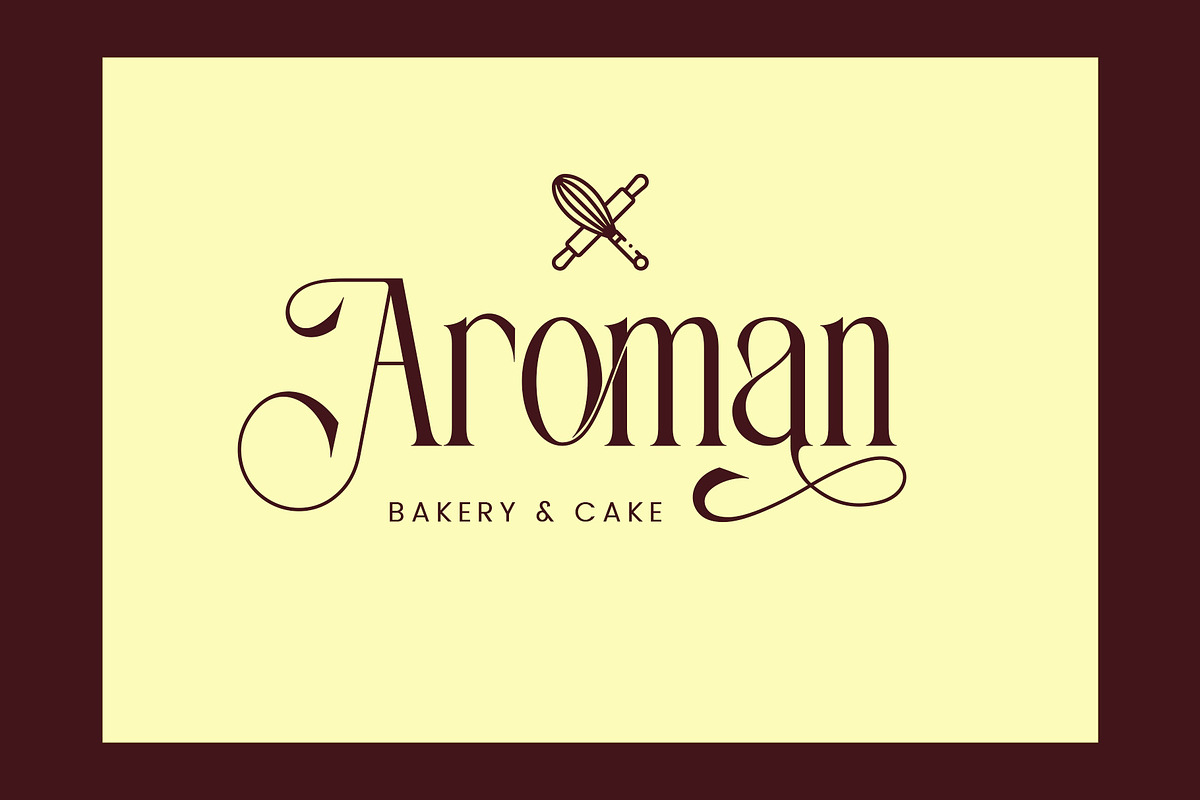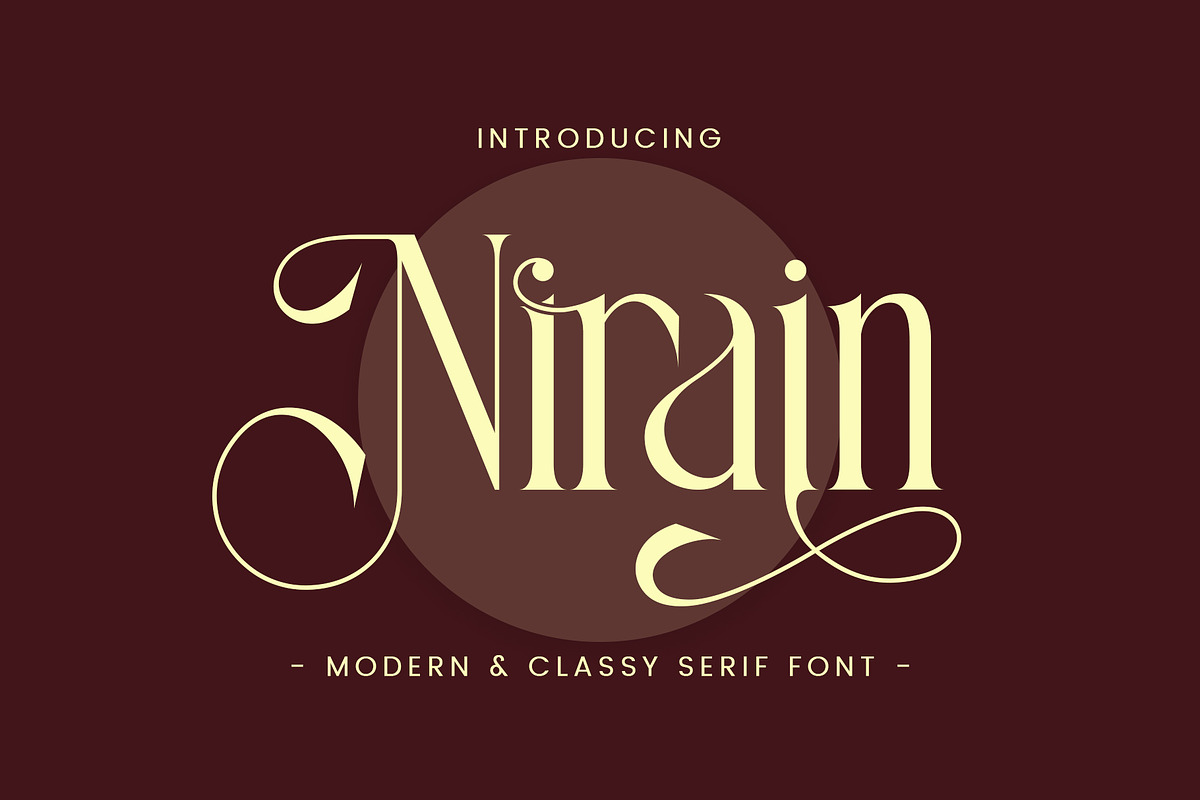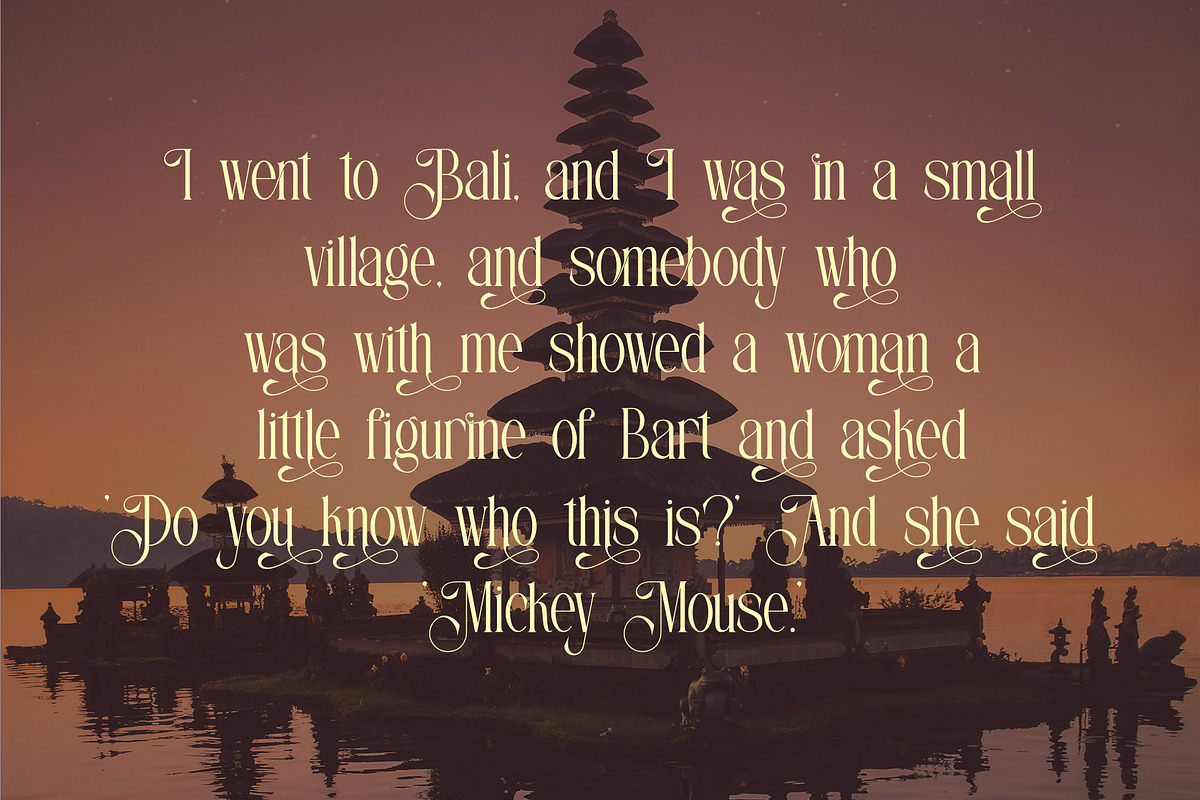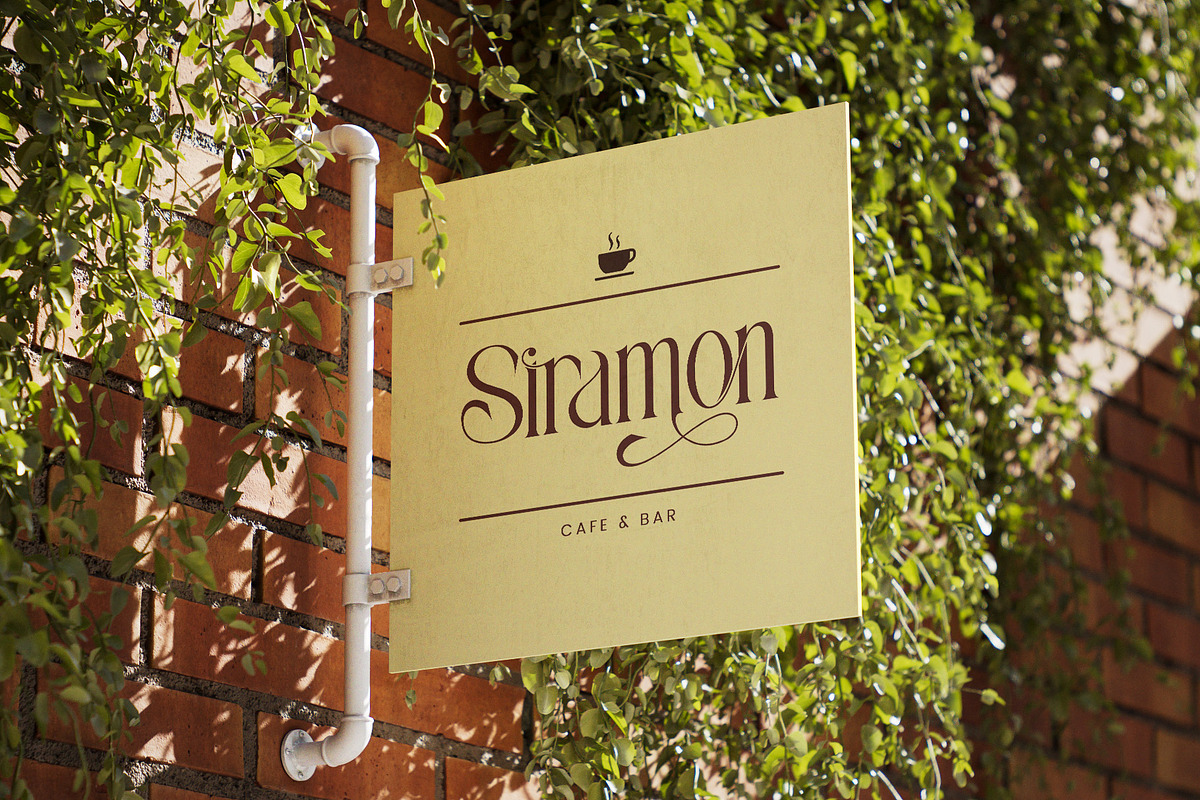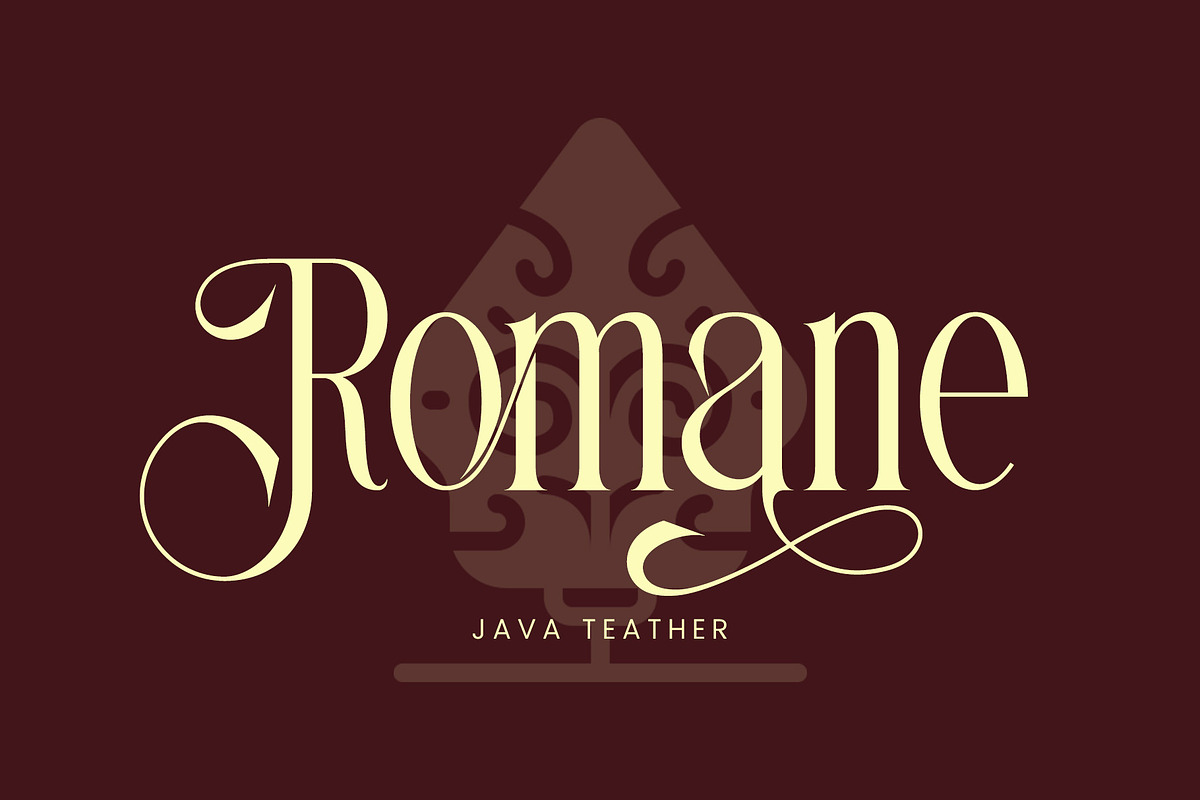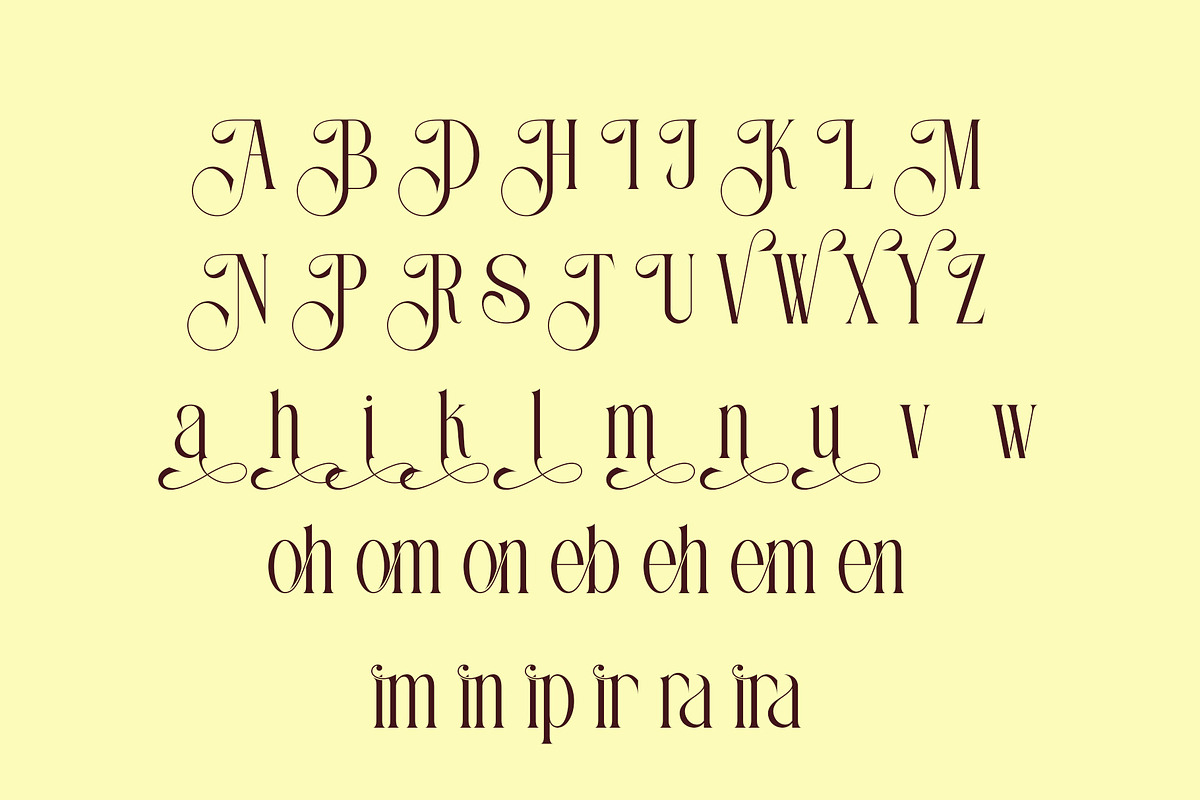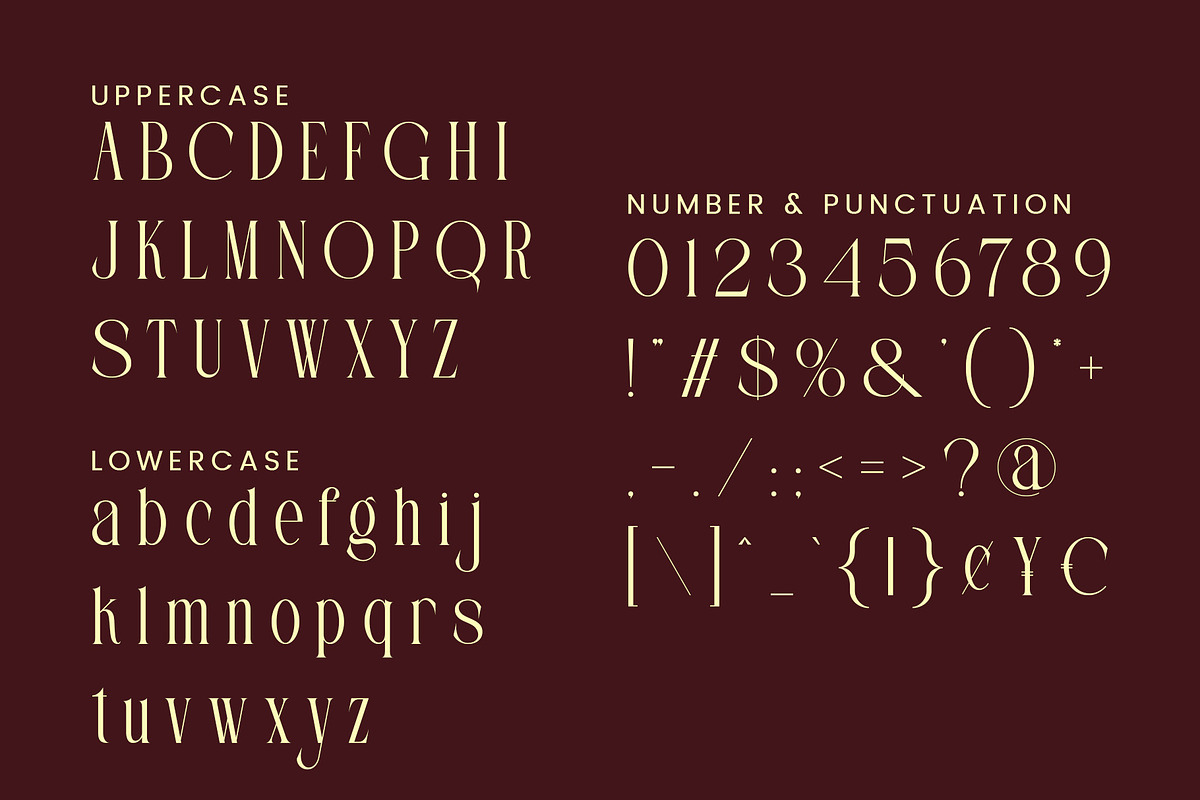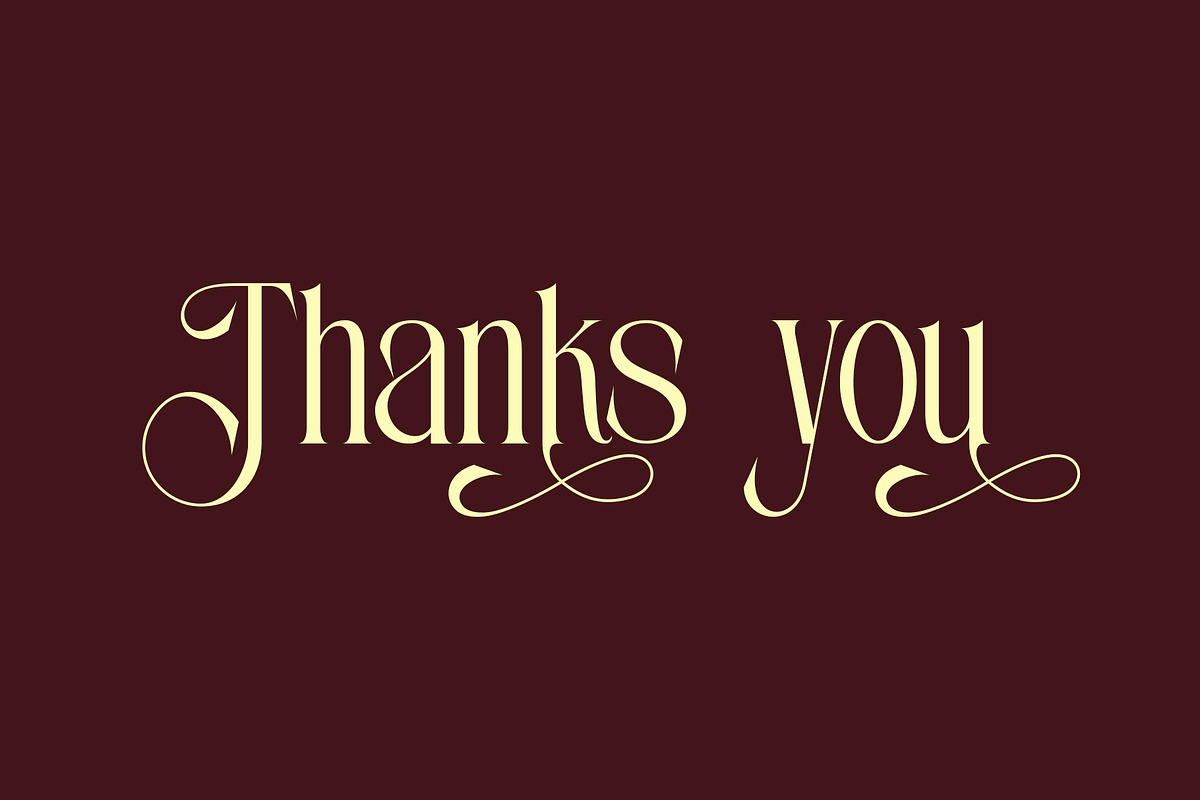
Nirain - Modern & Classy Serif
Nirain is a sophisticated modern serif font that blends timeless elegance with contemporary luxury. Featuring graceful curves, stylish swashes, and beautifully crafted letterforms, Nirain is designed to make every project look premium, memorable, and effortlessly chic.
Inspired by high-end fashion editorials and luxury branding, Nirain delivers a refined aesthetic that works perfectly for logos, packaging, beauty brands, wedding invitations, magazines, social media content, and upscale marketing materials. Its distinctive decorative details create a strong visual presence while maintaining excellent readability and versatility.
Whether you're building a luxury brand identity or creating elegant typography for a special project, Nirain adds sophistication, charm, and exclusivity to every design.
Luxury Branding
Fashion & Beauty Logos
Wedding Invitations
Editorial & Magazine Design
Social Media Templates
Boutique & Lifestyle Brands
Photography Watermarks
High-End Advertising
Elegant Modern Serif Style
Beautiful Decorative Swashes
Stylish Ligatures
Uppercase & Lowercase Characters
Create stunning luxury designs with Nirain — a serif typeface crafted to leave a lasting impression.